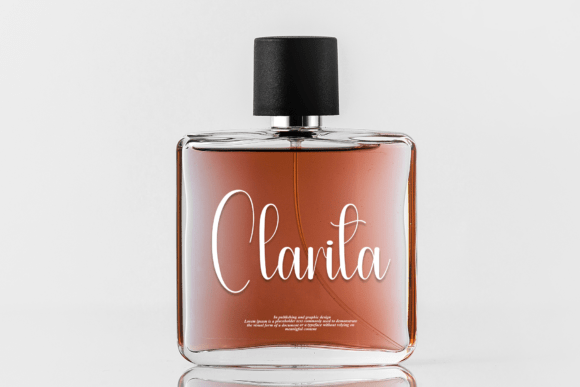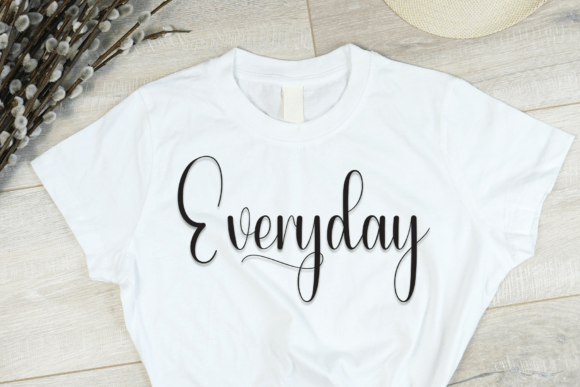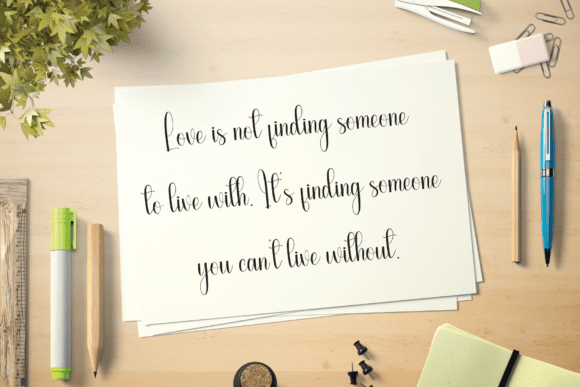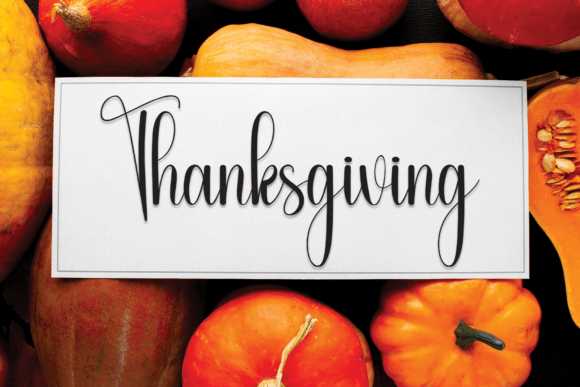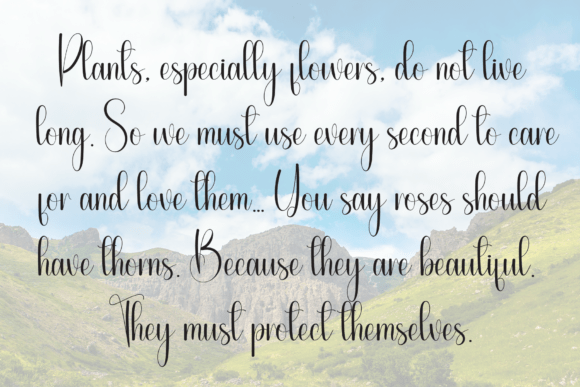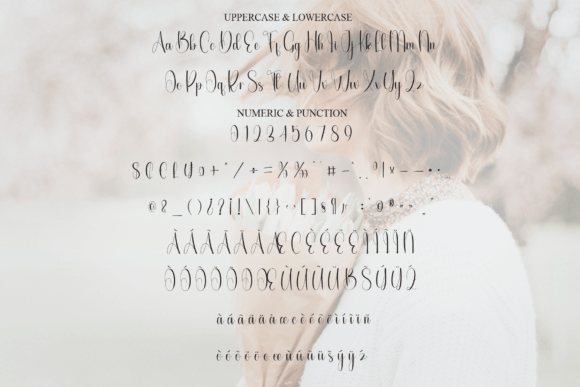
Unlocking the Power of Personal Expression with Delight Font
There’s nothing quite like the thrill of bringing a design idea to life. It’s that moment when the blank page transforms into a vibrant canvas, and your imagination knows no bounds. For designers, this moment is what makes it all worthwhile – the chance to infuse their unique perspective into every project. And that’s exactly what Delight Font is all about – a stylish handwritten script font that captures the essence of modern elegance and playful charm.
With its fluid strokes and captivating curves, Delight Font adds a personal touch to any design, making it perfect for logos, packaging, and invitations. Whether you’re a seasoned designer or just starting out, Delight Font is an invaluable asset that can elevate your work and set it apart from the rest. By incorporating this versatile typeface into your projects, you can inject warmth, sophistication, and creativity, making every design truly special.
- Unique Characteristics: Features a unique blend of modern and elegant design, with subtle flair and sophistication
Delight Font Review
Overall, I’d say that Delight Font is a lovely addition to any designer’s toolkit. ✨ The rounded edges and soft curves give it a friendly, approachable feel that’s perfect for branding and UI design. The font is also highly customizable, with a range of weights and styles to choose from.
One of the standout features of Delight Font is its versatility. ✨ It’s just as effective for creating playful, eye-catching headings as it is for setting body text. The font’s subtle flair makes it feel more interesting than a plain sans-serif, without being too over-the-top.
However, I do have a few caveats. ⚠️ Firstly, the font’s rounded edges can sometimes feel a bit too rounded – it’s a subtle issue, but it can make the text feel a bit soft and lacking in definition. Additionally, the font’s weight range is a bit limited, which can make it tricky to create bold, eye-catching headlines.
Tips for Getting the Most Out of Delight Font
Experiment with different font sizes and styles to create a visually appealing design.
Combine Delight Font with other fonts to create a unique and eye-catching look.
Use Delight Font in conjunction with bold and italic text to add emphasis and create visual interest.
Delight Font is perfect for creating invitations, social media graphics, and other visually appealing designs.
Use Delight Font to add a touch of elegance and sophistication to your designs.
Delight Font is also great for creating quotes, titles, and headings that grab attention.